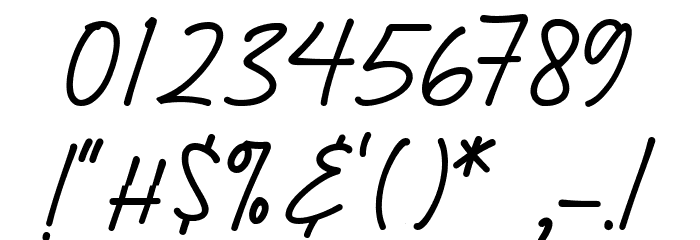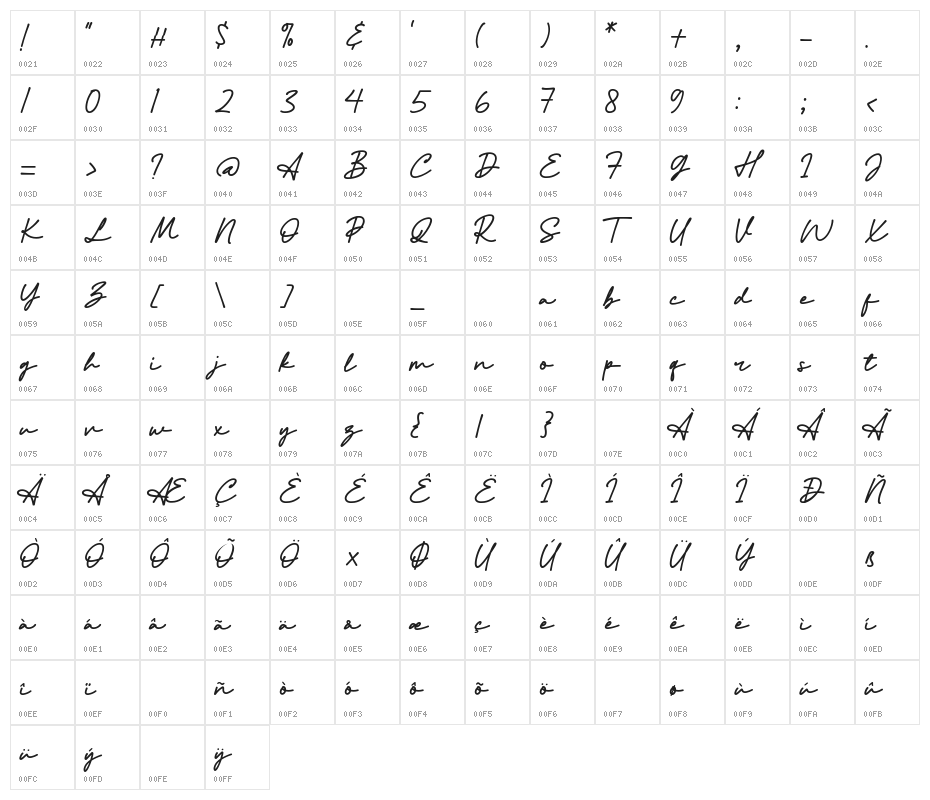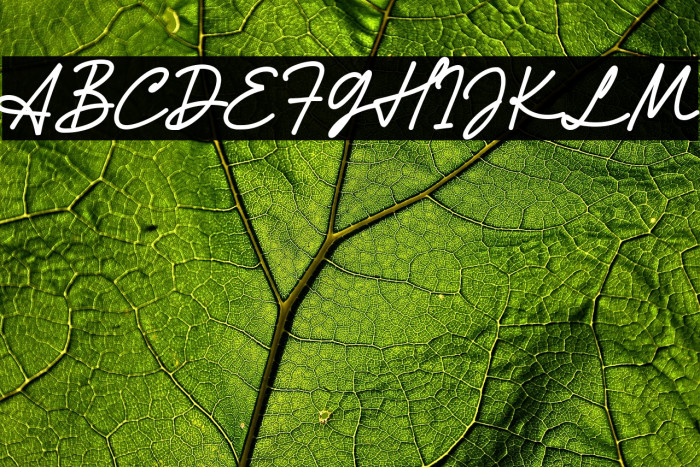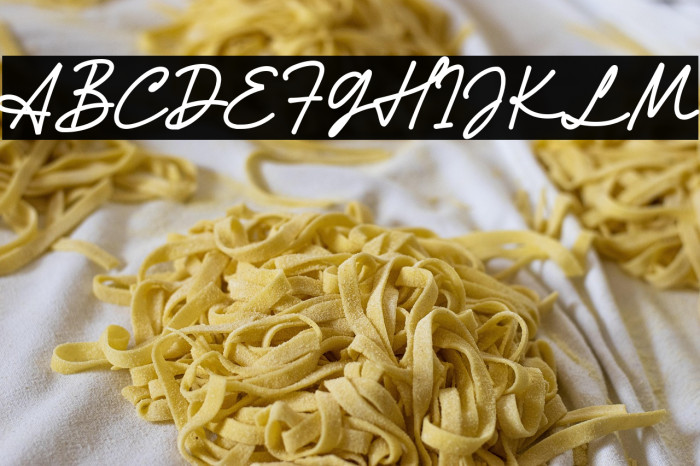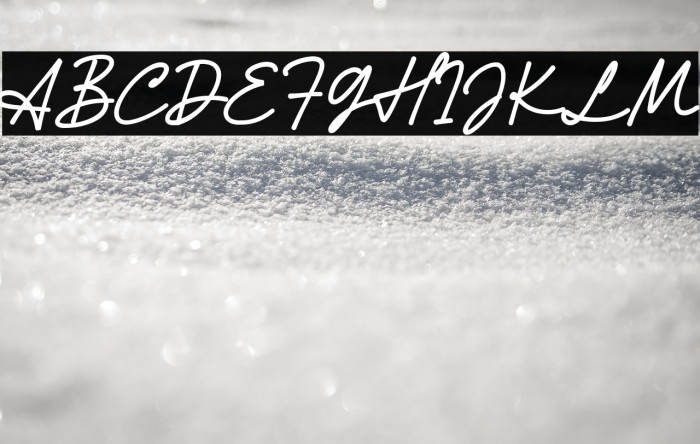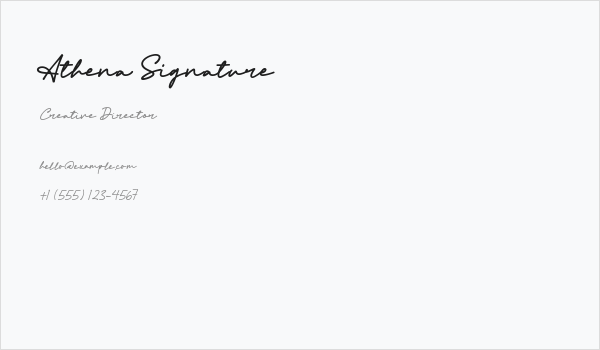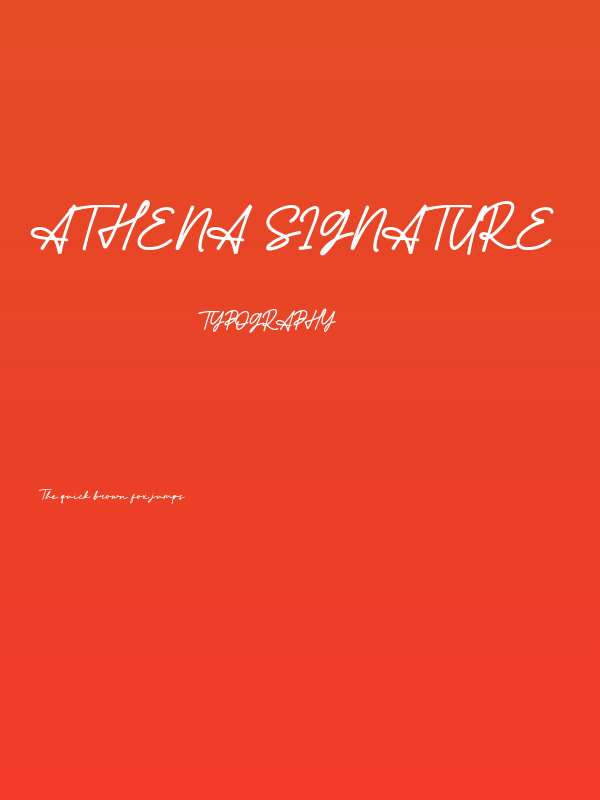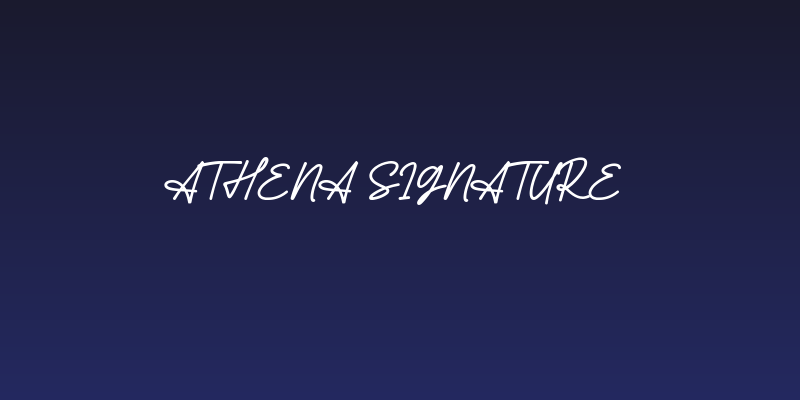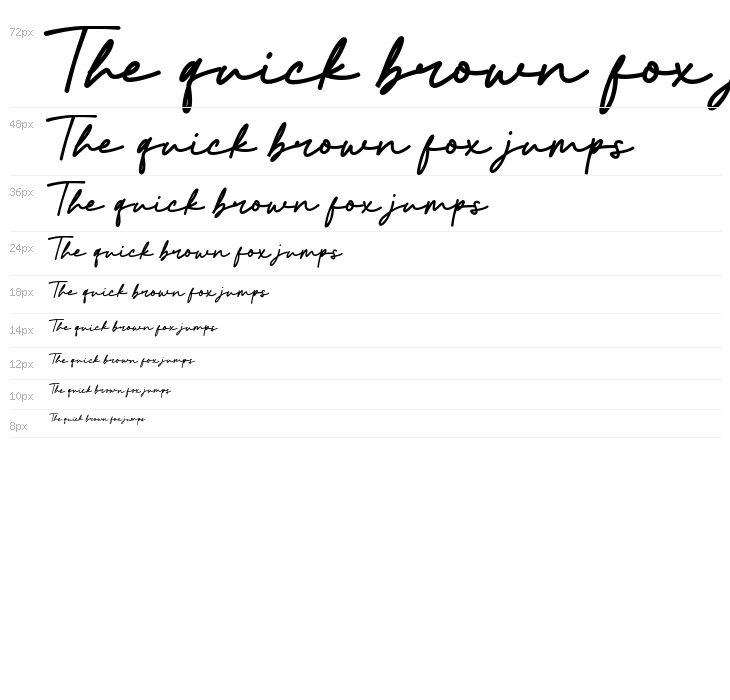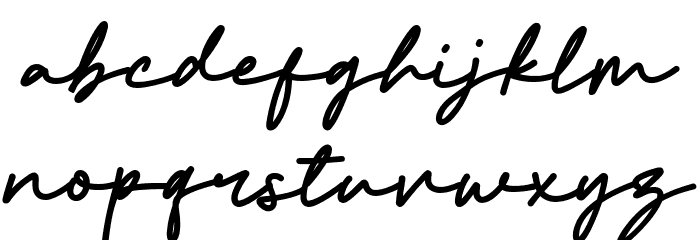
Athena Signature Font
Athena Signature Description
This font exudes a handwritten, cursive style with a fluid and elegant appearance. The characters are interconnected, giving it a seamless flow that mimics natural handwriting. The uppercase letters are slightly more pronounced, while the lowercase letters maintain a consistent rhythm. The numerals and special characters are crafted to match the overall script style, ensuring uniformity across all glyphs. This font is ideal for adding a personal touch to any design, with its graceful curves and smooth lines.